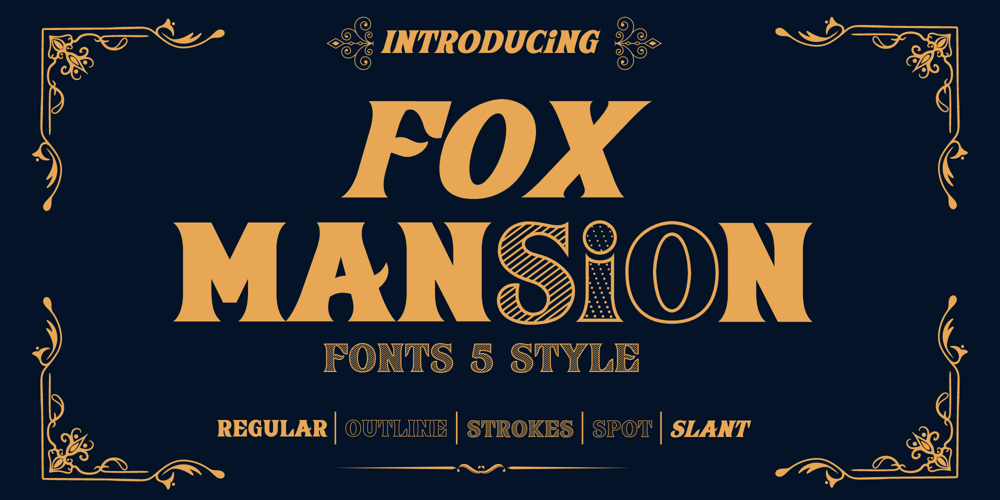
Fox Mansion Spot
Fox Mansion Spot font
Fox Mansion Spot Font Family was designed by Rattana Rattanawan and published by Fox7. Fox Mansion Spot contains 5 styles and family package options. Fox Mansion is a versatile font with 5 modern and beautiful styles. It is compatible with both contemporary and vintage design aesthetics. You can use it for various projects, including blog posts, logos, branding, advertisements, invitations, greeting cards, planners, photo albums, decorations, and much more.